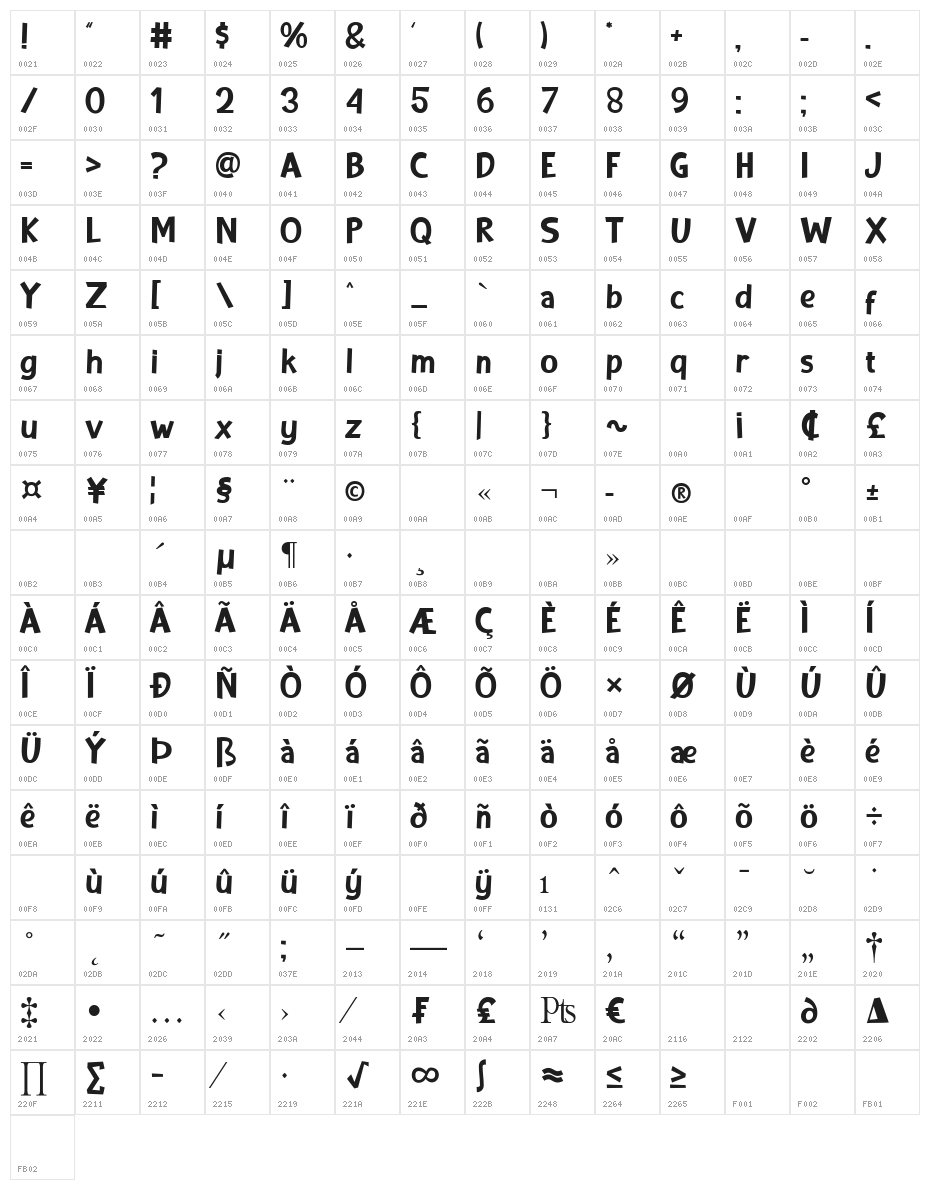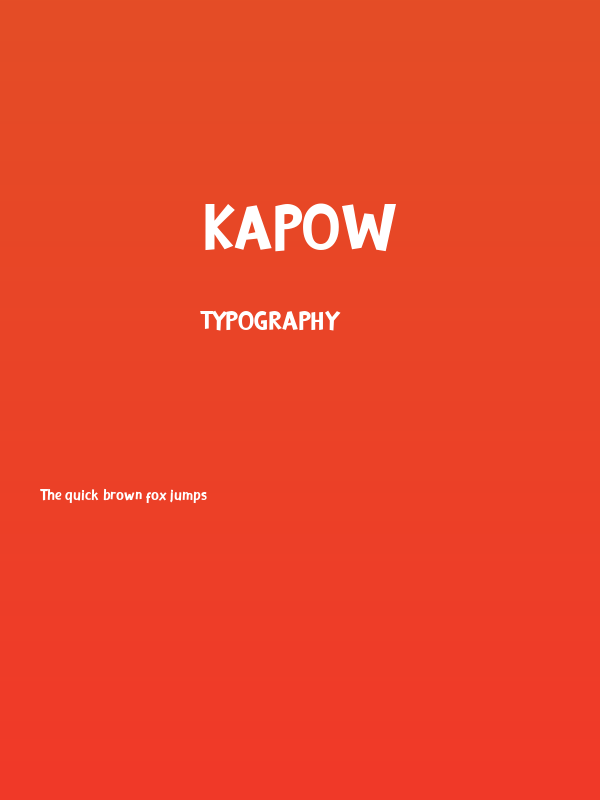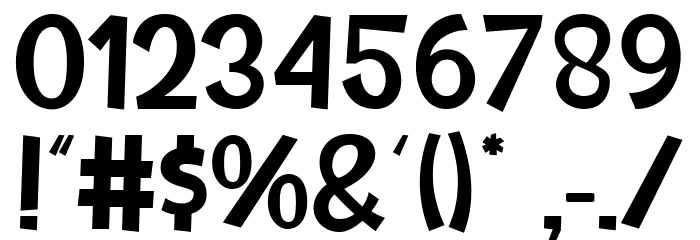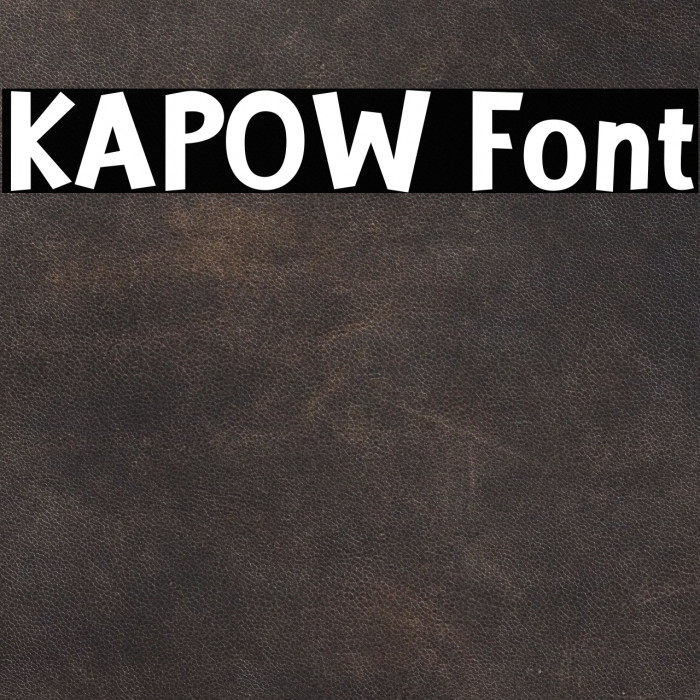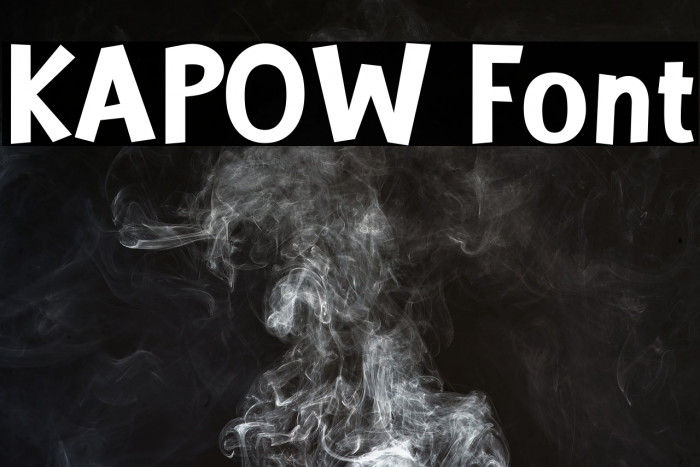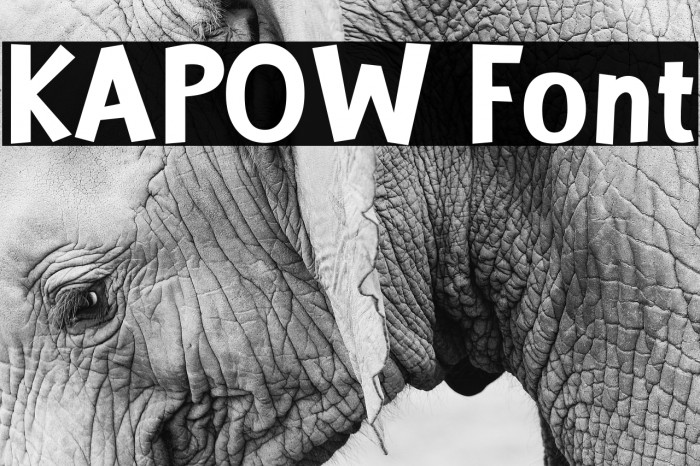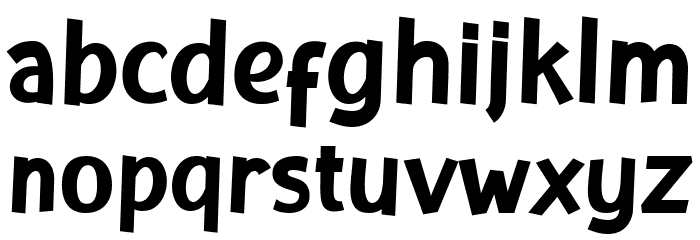
KAPOW Font
KAPOW Description
This font features a bold and dynamic style with slightly irregular shapes, giving it a playful and energetic appearance. The letters are thick and robust, with a slight slant that adds a sense of movement and excitement. The uppercase and lowercase characters are well-balanced, maintaining a consistent weight throughout. The numerals and special characters follow the same bold and lively design, making them stand out. This font's unique style is reminiscent of comic book lettering, with exaggerated curves and angles that enhance its visual impact.
| Proposed Projects | Ideal for comic books, posters, children's books, and playful branding projects. |